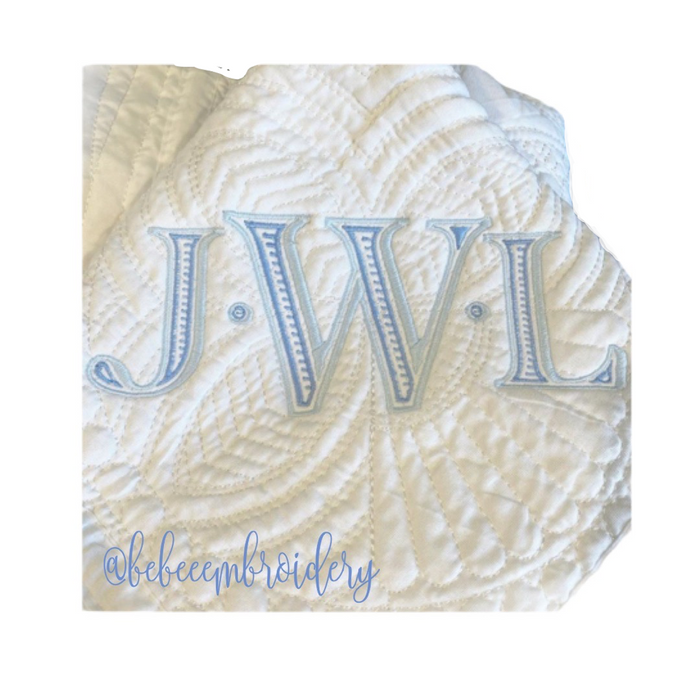
4" and 5" Ryan Ribbed Open Satin Small Embroidery Font
The Ryan Ribbed Open Satin Stitch Embroidery Font Package includes 4" and 5" sizes in uppercase letters as well as a decorative dot in each size to create a monogram as shown in the first image. Please note: These two sizes will not fit inside of a 4x4 hoop.